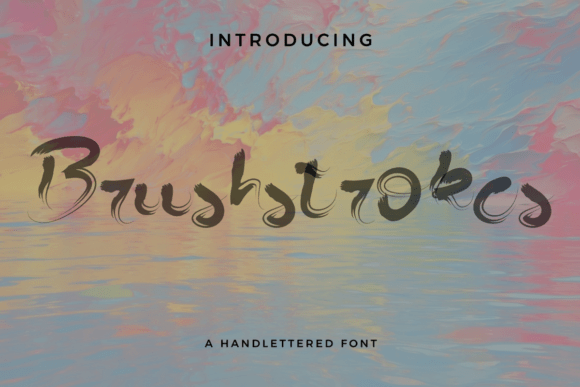
Brushstrokes Font: A Masterpiece of Expressive Elegance
In the world of typography, few fonts have managed to capture the essence of artistic passion and individuality as beautifully as the Brushstrokes font. This distinctive, handwritten script font has been turning heads with its enchanting elegance and fluid handlettered design, paying tribute to the timeless appeal of traditional brushstroke calligraphy while carrying a unique charm of its own.
The Inspiration Behind Brushstrokes
The Brushstrokes font is a celebration of the art of handlettering, with each stroke carefully crafted to evoke a sense of warmth and creativity. The font’s design is inspired by the traditional techniques of brushstroke calligraphy, where the expressiveness of the artist’s hand is evident in every line and curve. The result is a font that exudes a sense of personality and charm, making it perfect for a wide range of design projects.
The Characteristics of Brushstrokes
So, what sets Brushstrokes apart from other fonts? Here are a few key characteristics that make this font truly special:
- Fluid Handlettered Design: Brushstrokes features a fluid, handlettered design that gives it a unique and organic feel.
- Expressive Elegance: The font’s elegant strokes and curves evoke a sense of sophistication and refinement.
- Individuality: Each letterform has its own distinct personality, making the font perfect for designs that require a personal touch.
- Warmth and Creativity: Brushstrokes radiates a sense of warmth and creativity, making it ideal for designs that require a human touch.
Uses for Brushstrokes
The versatility of Brushstrokes makes it an excellent choice for a wide range of design projects, including:
- Logos and Branding: The font’s unique personality and charm make it perfect for logos and branding projects that require a distinctive touch.
- Wedding and Event Invitations: Brushstrokes’ elegant and sophisticated design makes it ideal for wedding and event invitations.
- Packaging and Product Design: The font’s creative and playful vibe makes it perfect for packaging and product design projects that require a personal touch.
- Advertising and Marketing: Brushstrokes’ expressive elegance makes it an excellent choice for advertising and marketing campaigns that require a sophisticated and refined look.
Tips for Using Brushstrokes Effectively
To get the most out of Brushstrokes, here are a few tips to keep in mind:
- Use it Sparingly: Brushstrokes is a font that demands attention, so use it sparingly to avoid overwhelming the design.
- Pair it with Simple Fonts: Pair Brushstrokes with simple, clean fonts to create a striking contrast and make the design more readable.
- Experiment with Colors: Brushstrokes looks stunning in a variety of colors, so don’t be afraid to experiment and find the perfect hue for your design.
- Pay Attention to Kerning: As with any font, pay attention to kerning to ensure that the letters flow smoothly and elegantly.
The Benefits of Using Brushstrokes
So, why choose Brushstrokes for your design project? Here are just a few benefits of using this exceptional font:
- Unparalleled Versatility: Brushstrokes is a font that can be used for a wide range of design projects, from logos and branding to packaging and advertising.
- Stylistic Brilliance: The font’s elegant and sophisticated design makes it perfect for designs that require a refined and polished look.
- Time-Saving: With Brushstrokes, you can create stunning designs in a fraction of the time it would take to create a custom font.
- Cost-Effective: Brushstrokes is an affordable font solution that won’t break the bank.
In conclusion, Brushstrokes is a truly exceptional font that offers a unique blend of elegance, creativity, and individuality. Its fluid handlettered design, expressive elegance, and warmth make it perfect for a wide range of design projects. With its unparalleled versatility, stylistic brilliance, and cost-effectiveness, Brushstrokes is an excellent choice for designers looking to add a touch of sophistication and refinement to their designs.